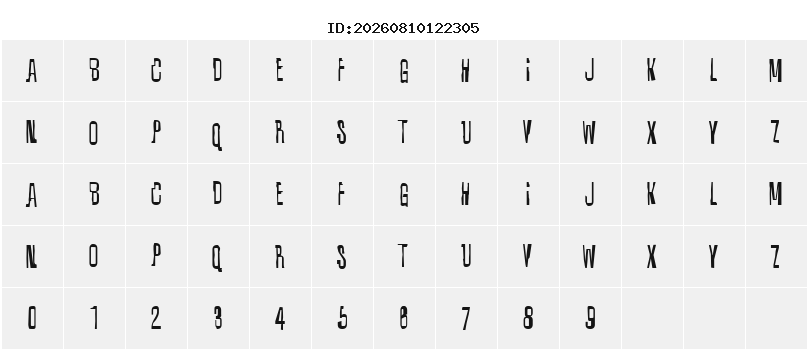
Quixotic Preview
• Font Name: Quixotic
• Font ID: Quixotic
• Full Font Name: Quixotic
• Version: 1.0 Tue Mar 11 21:42:24 1997
• PostScript Name: Quixotic
• Character Count: 263
About Quixotic.ttf
Quixotic.ttf is a modern, elegant sans-serif font designed for ultimate readability and visual harmony. Perfect for branding, headlines, web design, and print materials.